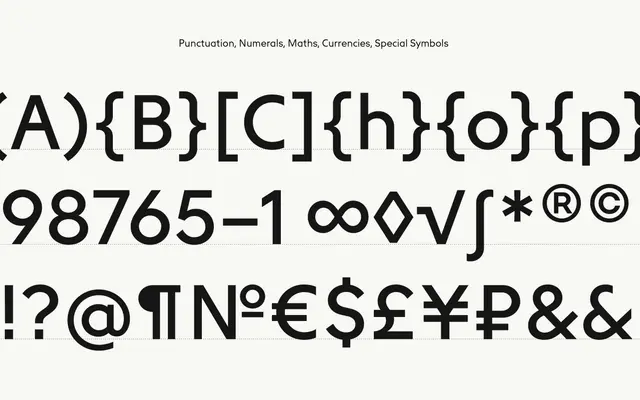
A geometric grotesque with Futura and Johnston Sans in its lineage, offered in six weights with a secondary 'Altiverse' set of geometrically constructed alternates for display use.
Six weights from Light to Black give Factor B a workable range for both text and display settings, while the Altiverse alternate set adds geometric personality suited to logotypes and headlines. Caps and ascender heights are intentionally varied rather than strictly uniform, softening the rigidity typical of pure geometric grotesques. Extended Latin and Cyrillic coverage makes it viable for multilingual branding and web projects.
Described explicitly as a geometric grotesk drawing conceptual inspiration from Futura and Johnston Sans, with a rational approach and geometrically constructed alternates in the Altiverse set.